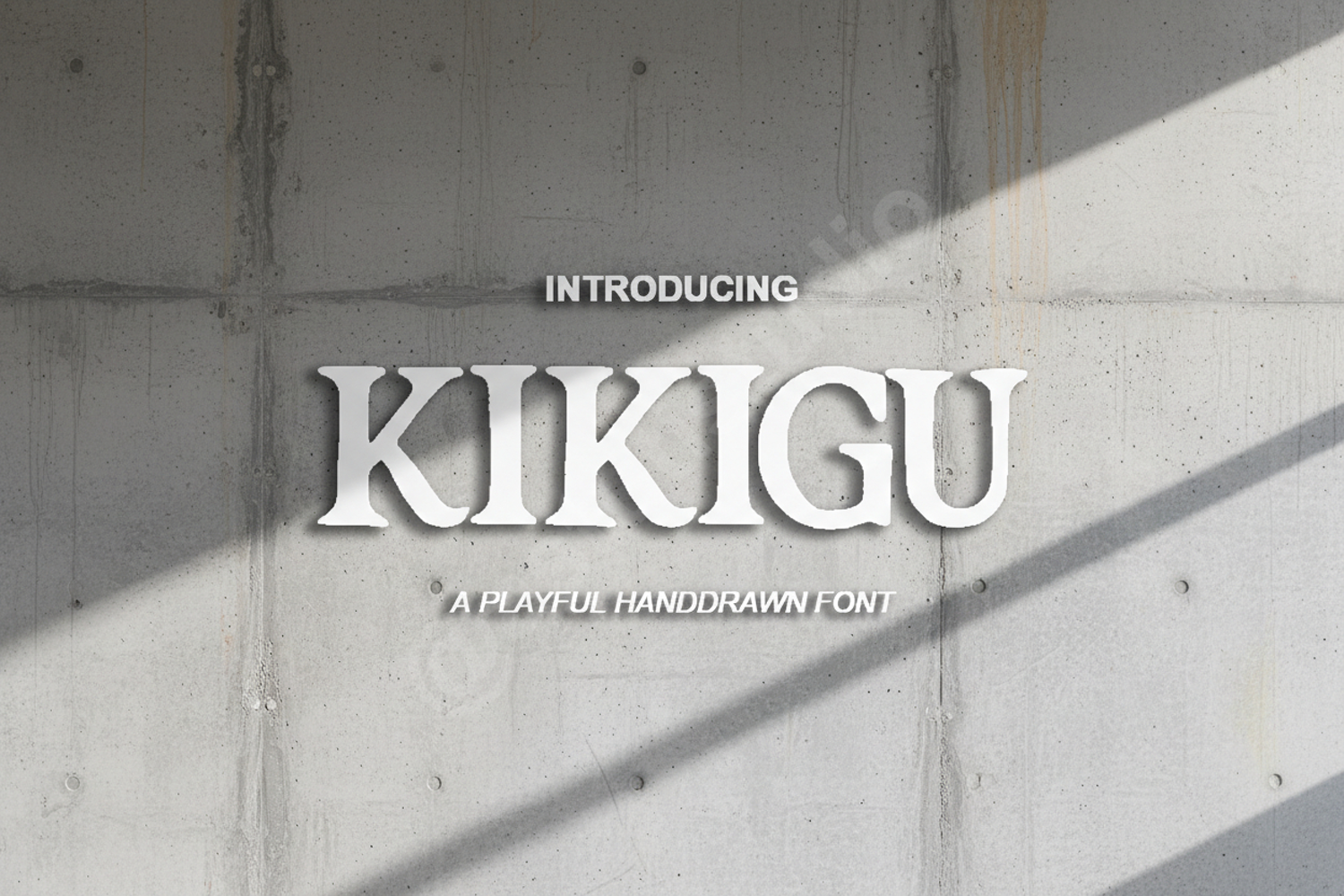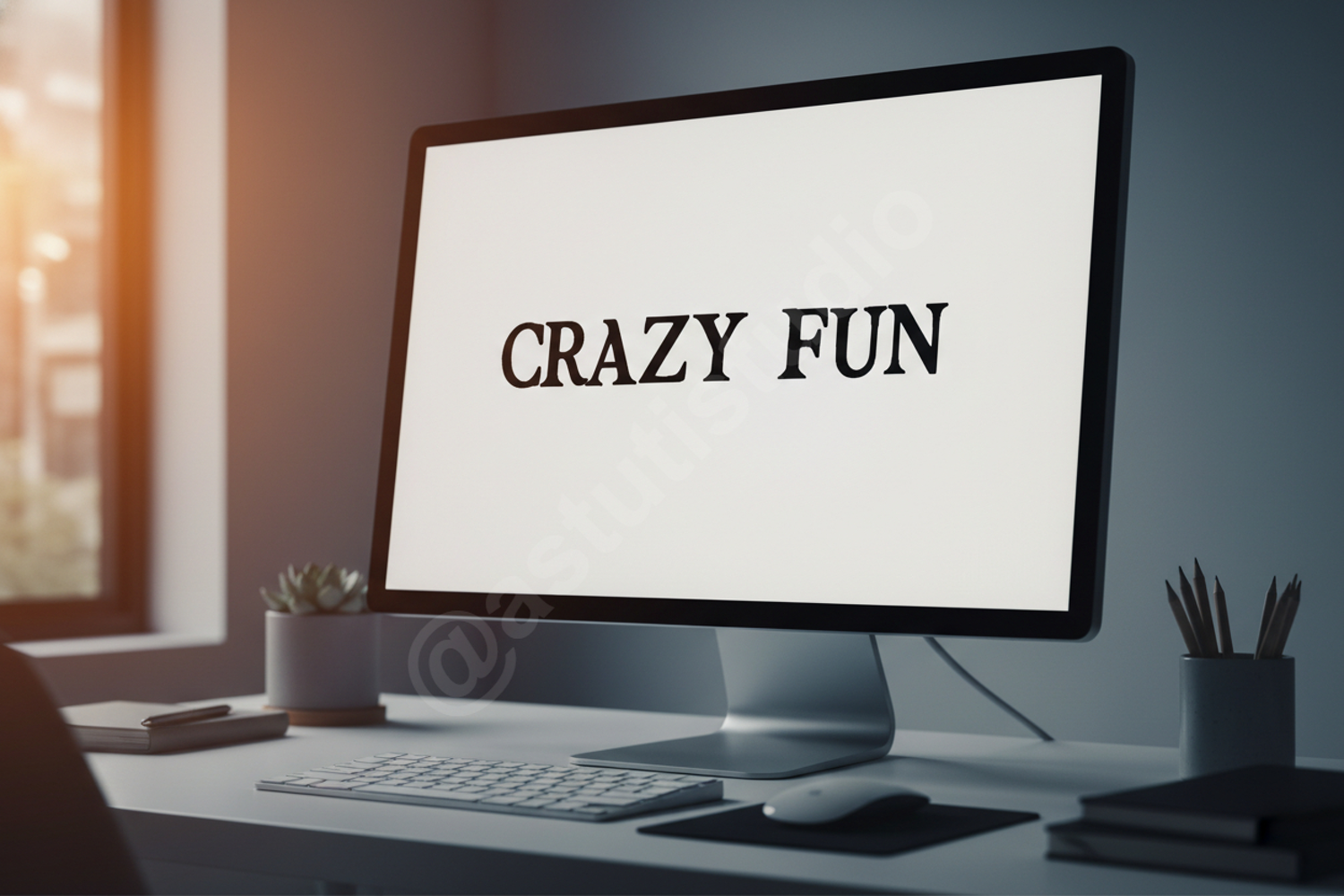
Kikigu - Modern Playful Display Font
Kikigu
Elevate your creative projects with Kikigu, a premium display font that seamlessly blends modern sophistication with a playful, energetic spirit. Designed for designers who demand both character and versatility, Kikigu features unique letterforms that maintain high legibility while making a bold statement. Whether you are working on a high-end brand identity or a fun editorial layout, this font provides the professional edge your work deserves.
- Branding and Identity: Create memorable logos and brand marks that stand out from the competition.
- Social Media: Design eye-catching Instagram quotes, Pinterest pins, and YouTube thumbnails.
- Packaging Design: Perfect for product labels, boxes, and merchandise branding.
- Editorial Projects: Ideal for magazine headers, posters, and children's book covers.
- Wedding and Events: Add a contemporary touch to invitations and event signage.